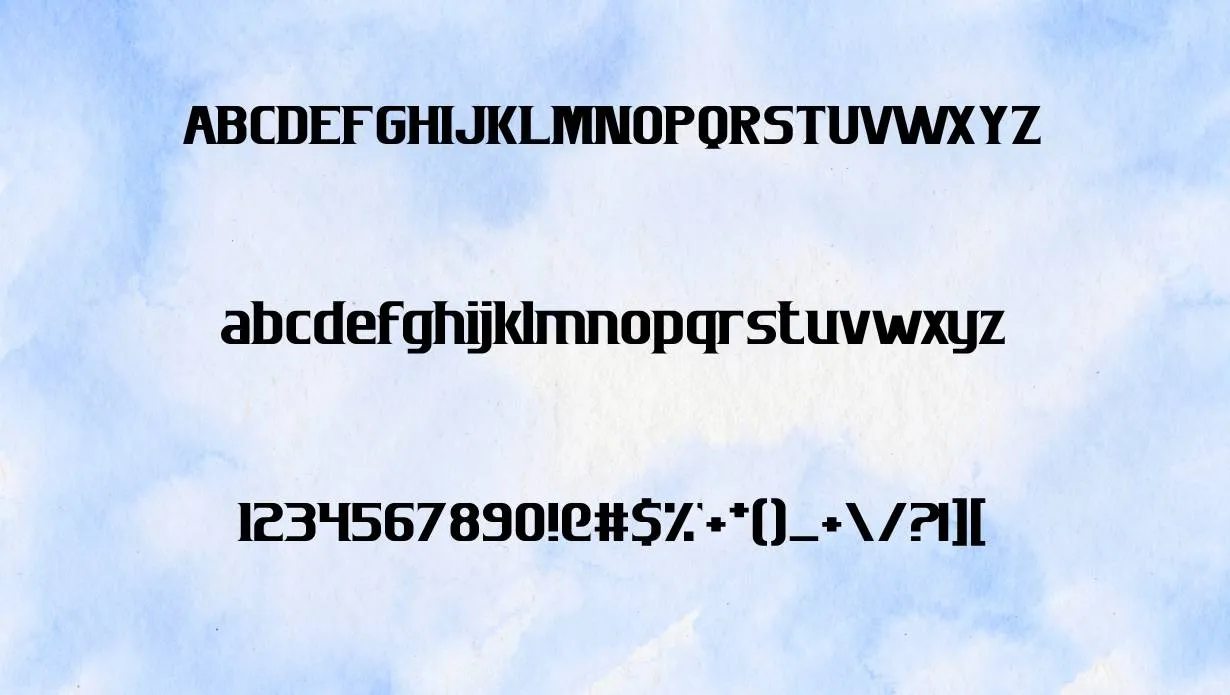
The Scones and Crossbows font is a fusion of medieval charm and adventure. Each letter embodies a character from a thrilling story, merging the cozy feel of scones with the excitement of daring quests.
Using this font infuses your text with a delightful mix of warmth and courageous spirit, turning your words into an engaging narrative of both coziness and boldness.